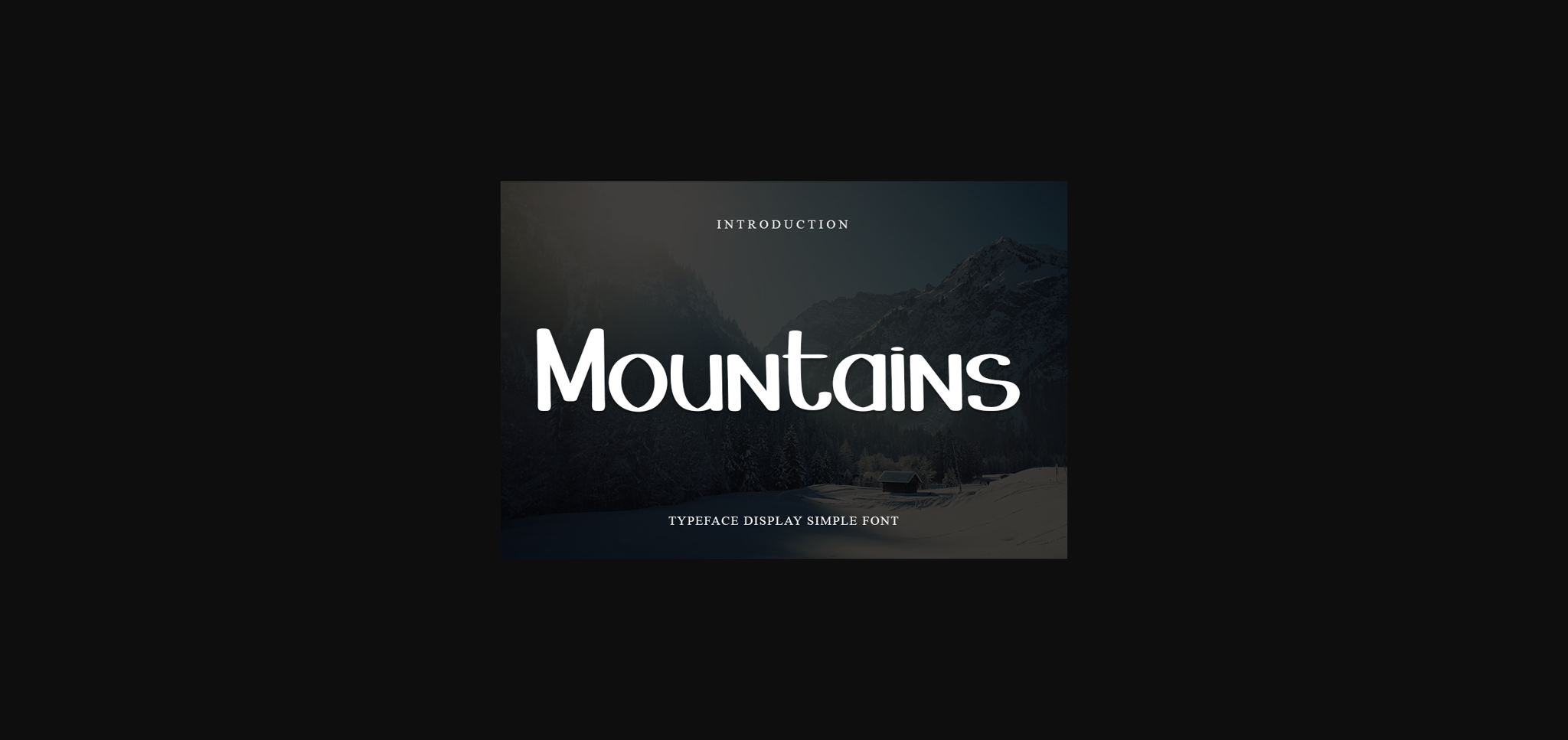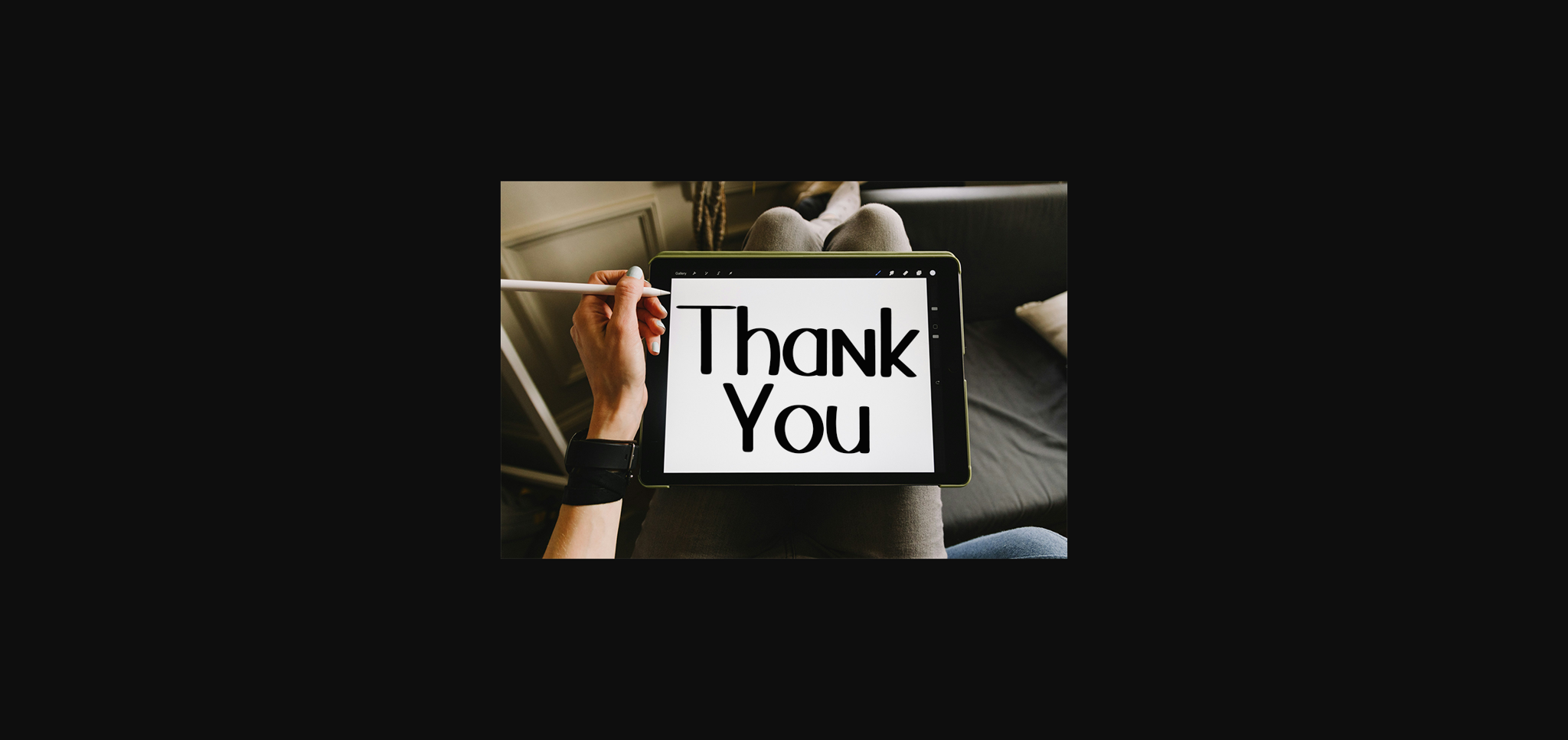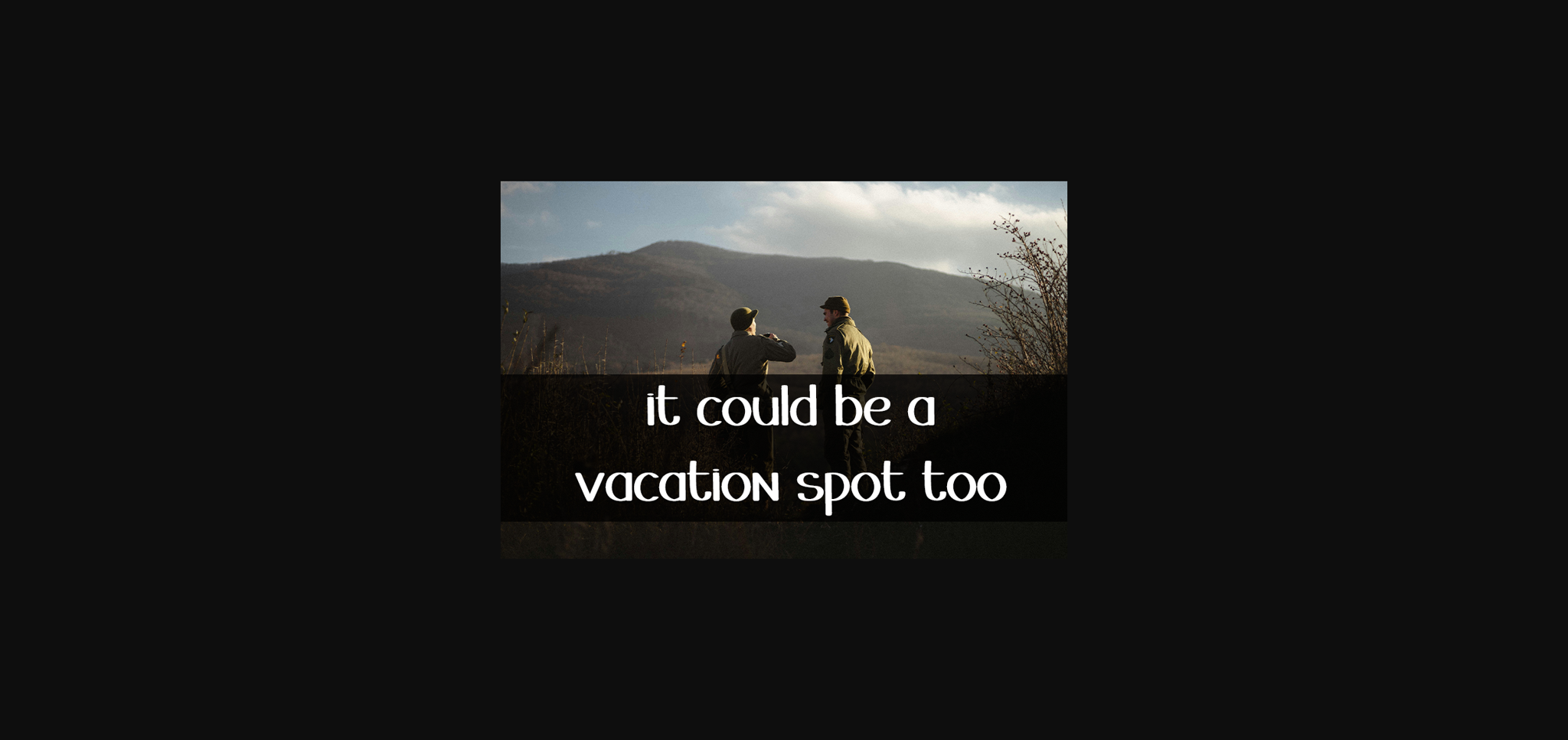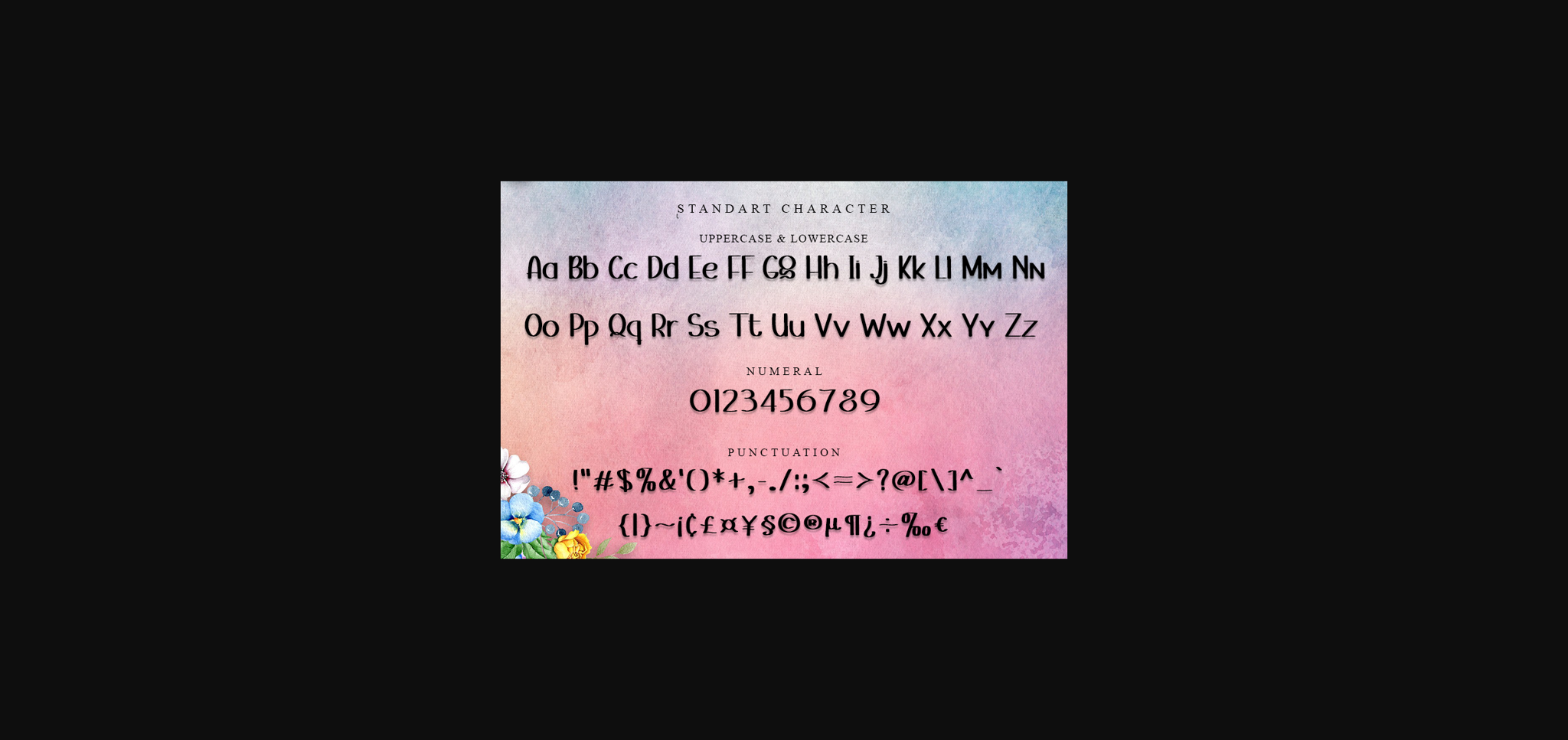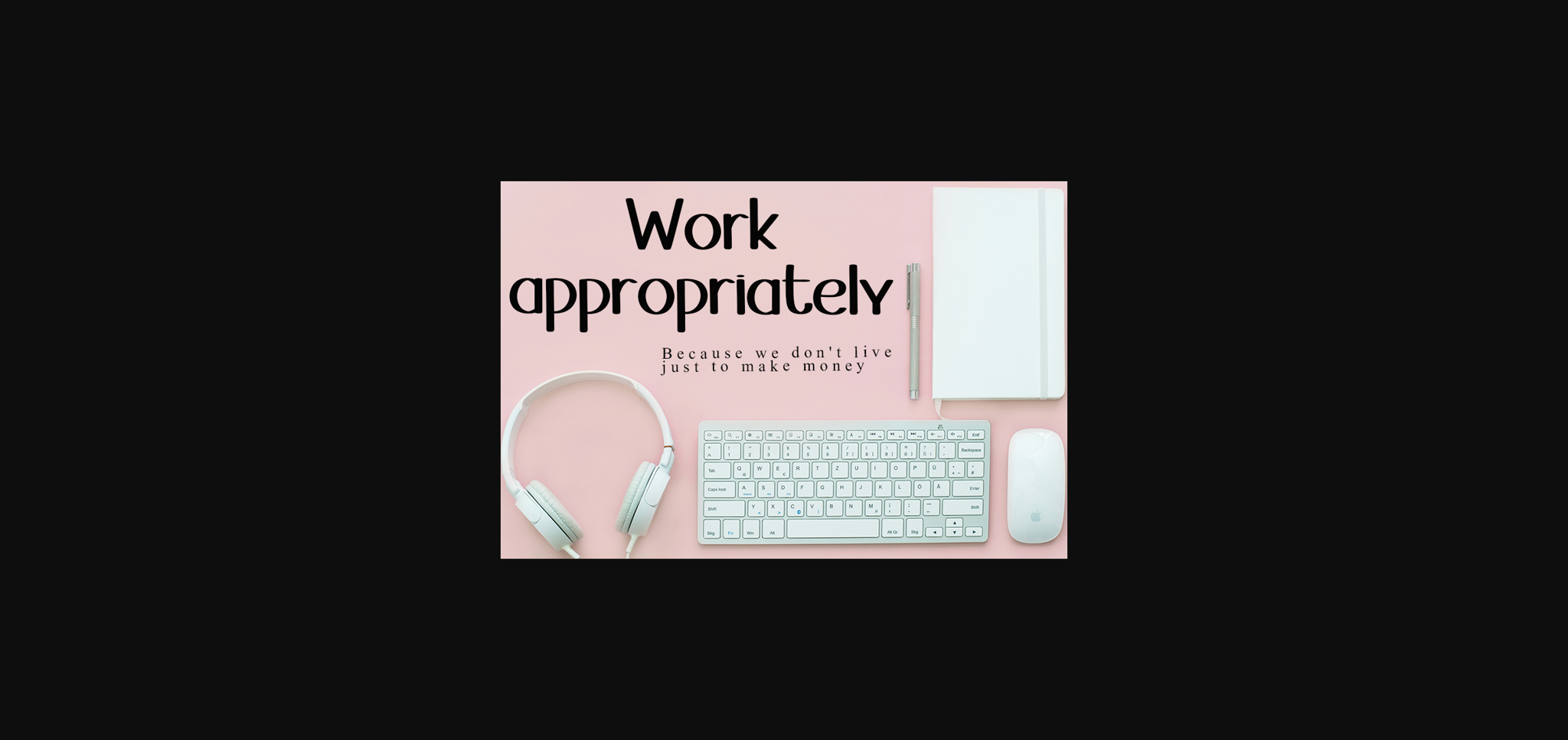
Mountains Font
About Mountains Font
Mountains is a modern sans-serif font carefully created with a touch of elegance. Whether you’re looking for fonts for Instagram or calligraphy scripts for DIY projects, this font will turn any creative idea into a true piece of art!